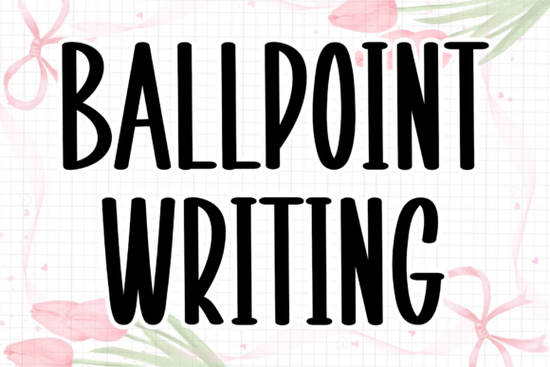
The Ballpoint Writing font gives your designs the natural look of handwritten text with a refined, modern feel. It's a fluid script typeface that works beautifully when you want something personal and elegant without going over the top. Designers, stationers, and small business owners reach for this style when standard serif or sans-serif fonts simply won't cut it.
What makes this handwritten script font different from others?
Not all script fonts are created equal. Some feel too casual, while others look stiff and mechanical. Ballpoint Writing sits right in the middle it has the warmth of real handwriting with just enough structure to stay readable at different sizes.
The letterforms flow naturally, with subtle variations in stroke width that mimic a real ballpoint pen. This gives the font an authentic feel rather than an overly stylized one. If you've worked with fonts like the Melamine typeface, you'll notice Ballpoint Writing takes a similar organic approach but with a slightly more contemporary edge.
Where does this font work best?
This font isn't just about looking pretty it solves real design problems. Here are the most common uses:
- Wedding stationery: Save-the-dates, invitations, menus, and place cards all benefit from a personal, handwritten touch.
- Event branding: Intimate gatherings, bridal showers, and boutique events pair well with fluid script lettering.
- Editorial and magazine layouts: Use it for pull quotes, signatures, or section headers that need a human feel.
- Photo overlays: Lifestyle and fashion photographers add elegant text on images for social media or portfolios.
- Print-on-demand products: Mugs, tote bags, greeting cards, and wall art look more appealing with a hand-lettered font.
How does it compare to other script fonts?
There's no shortage of script fonts available, so how does Ballpoint Writing stack up? Let's look at a few alternatives worth considering.
If you prefer a more romantic, looping style, Love Islan's elegant letterforms offer that classic calligraphy feel. For something with a rustic or vintage personality, the Faither typeface leans into that handmade aesthetic. And if you want something bold and expressive, a modern calligraphy option like Bellinda delivers strong, sweeping strokes.
Ballpoint Writing distinguishes itself by staying understated. It doesn't try to be the loudest element on the page. Instead, it complements your overall layout with quiet sophistication which is exactly what many high-end projects need.
You'll also want to check whether the font includes alternate characters, ligatures, and swashes these extras let you customize the look of your text and avoid that repetitive, "digital" appearance that some script fonts suffer from.
How should you pair this font with other typefaces?
A good script font rarely works alone. Pairing it with the right complementary typeface creates balance and hierarchy in your designs. Here are a few practical combinations:
- With a clean sans-serif: Fonts like Montserrat or Poppins give structure next to a flowing script.
- With a textured display font: For projects with a handmade or vintage vibe, a chalk-style display font can add visual interest alongside the script.
- With a simple serif: A classic option like Playfair Display balances the casualness of handwritten text for editorial layouts.
The key is contrast. If your script font is delicate and light, pair it with something bolder and more geometric. This keeps your design readable and visually engaging.
Who is this font a good fit for?
This font is a solid pick for anyone who needs their designs to feel personal and polished at the same time. Specifically:
- Wedding stationers building custom invitation suites
- Print-on-demand sellers creating greeting cards, apparel, or home decor
- Small business owners designing logos, packaging, or social media graphics
- Crafters using Cricut or Silhouette machines for DIY projects
- Photographers adding text overlays to lifestyle or editorial images
It's versatile enough for both digital and print applications, which makes it a practical addition to any font library.